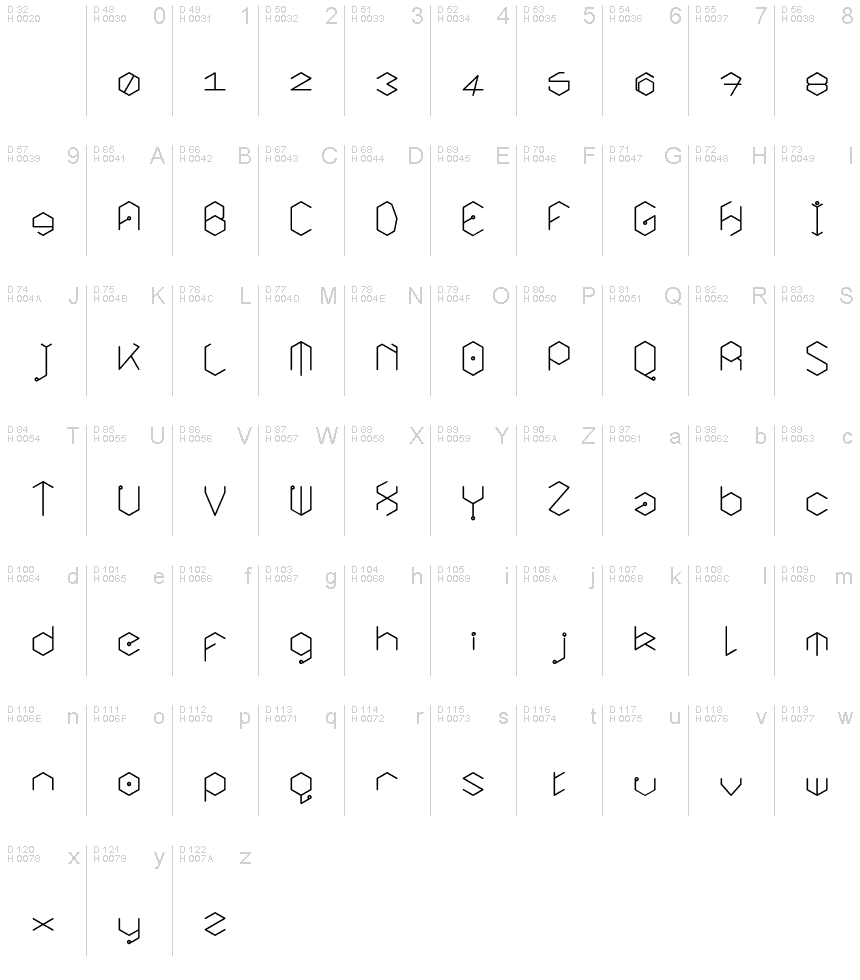
Hexic Vertical
Hexic Vertical font is a light techno typeface designed by Farran Phlowyd Lee.
Originally developed for my friend's album cover, this is a font based on my interpretation of binding Latinate glyphs into a basic hexagonal grid.
Featuring lowercase glyphs as the original forms, with uppercase added recently to expand the font to cover the standard glyph set.
Includes numbers, and ; but not yet any symbols or punctuation.
Early build, therefore it is only basically kerned and not customised per glyph/class.